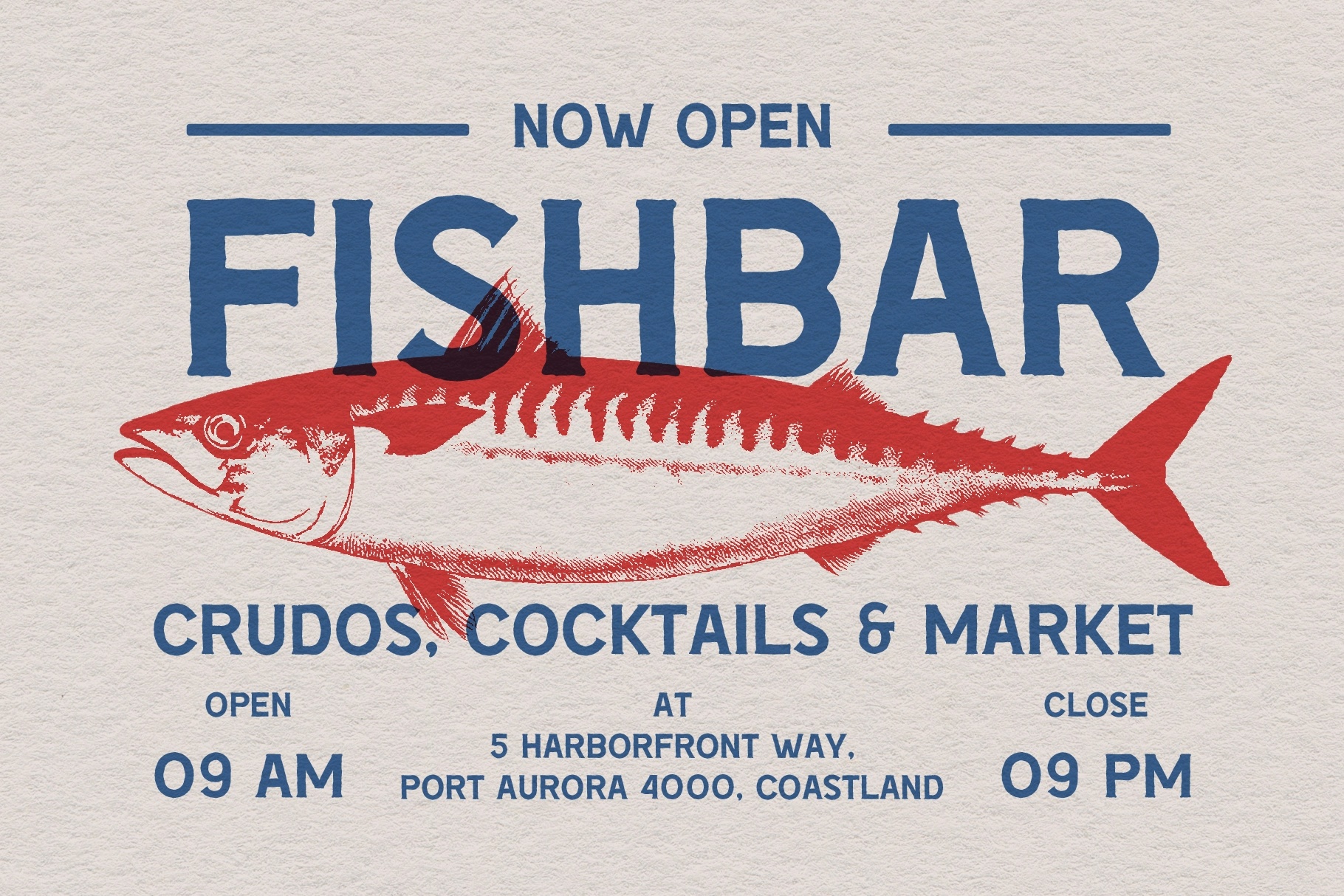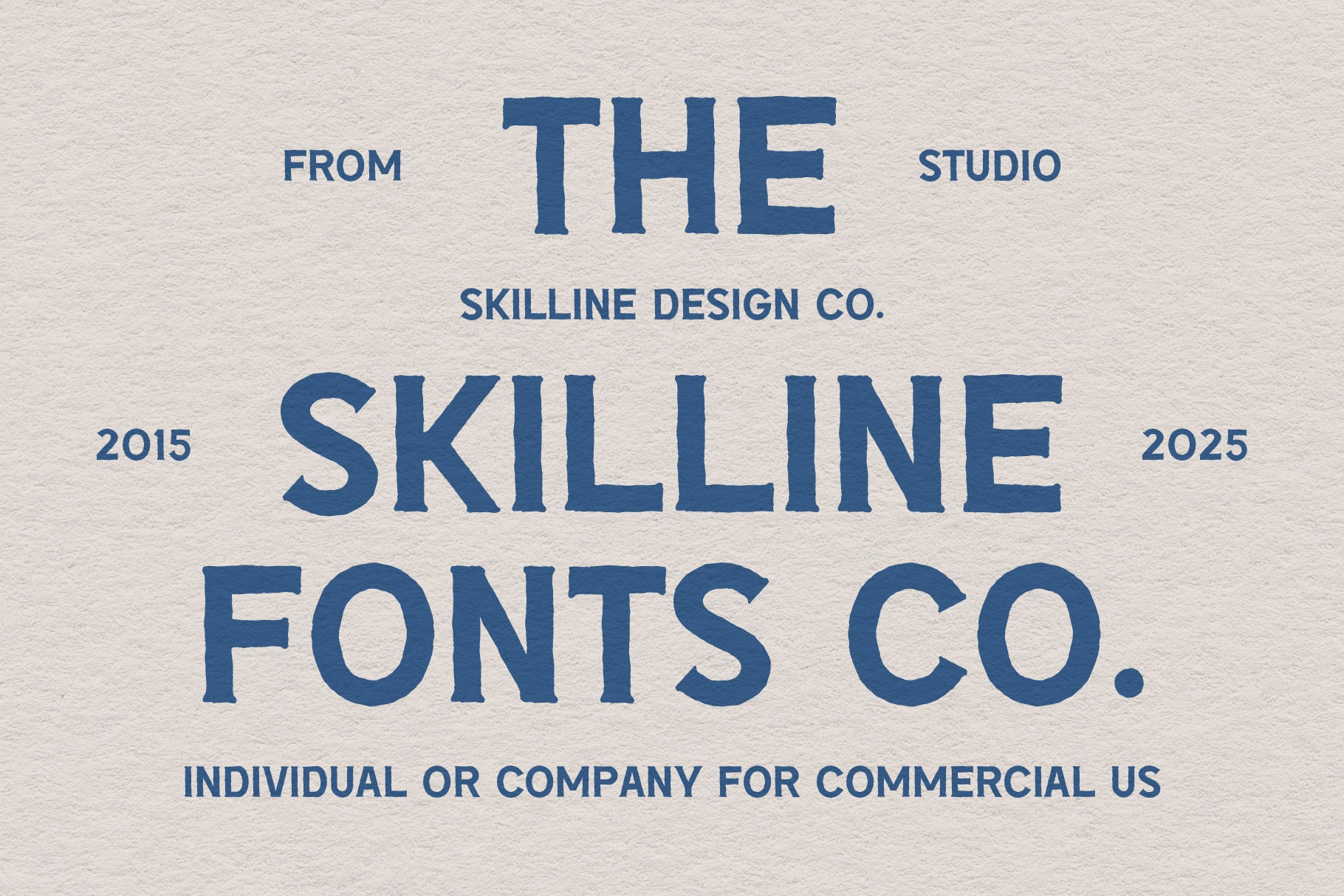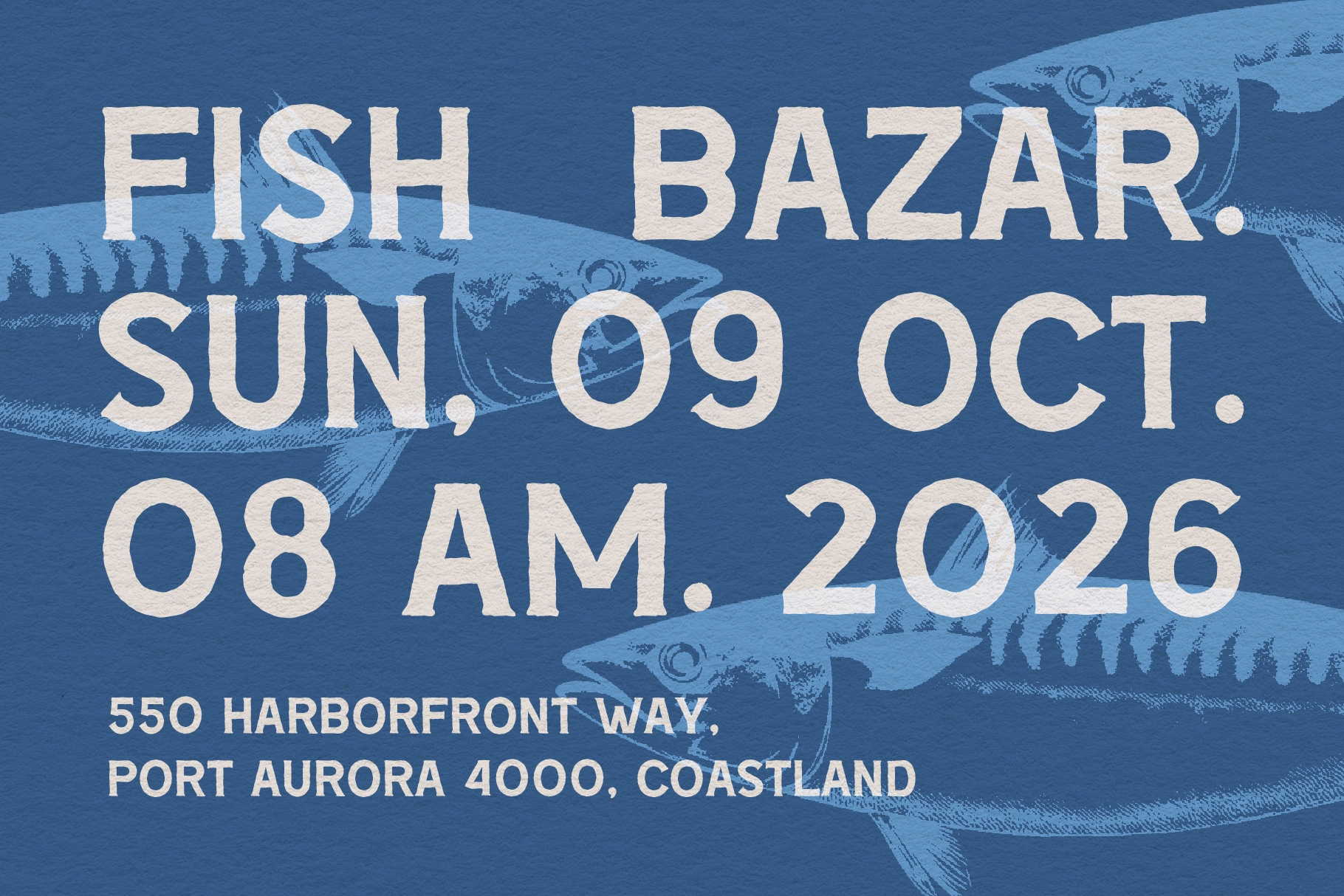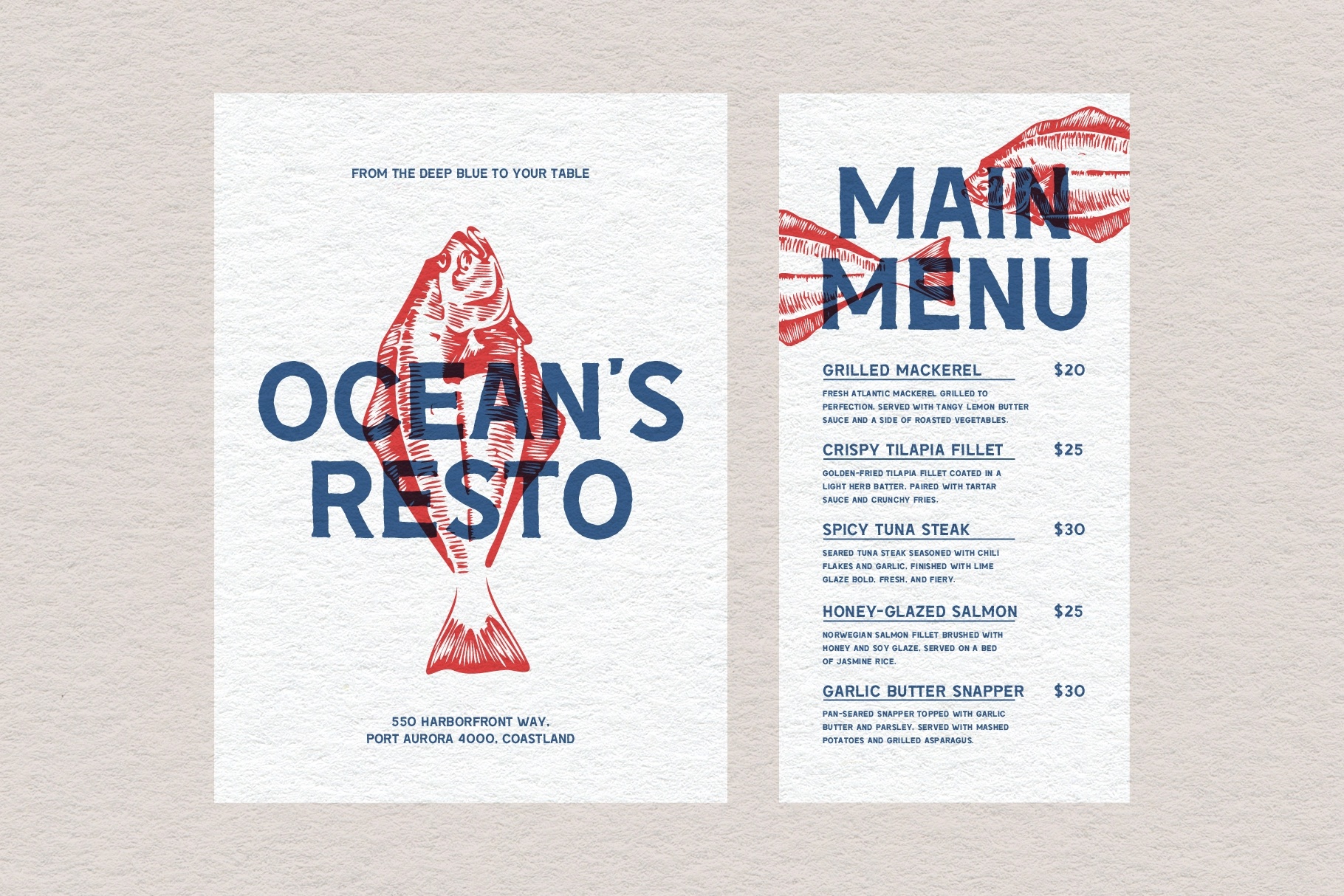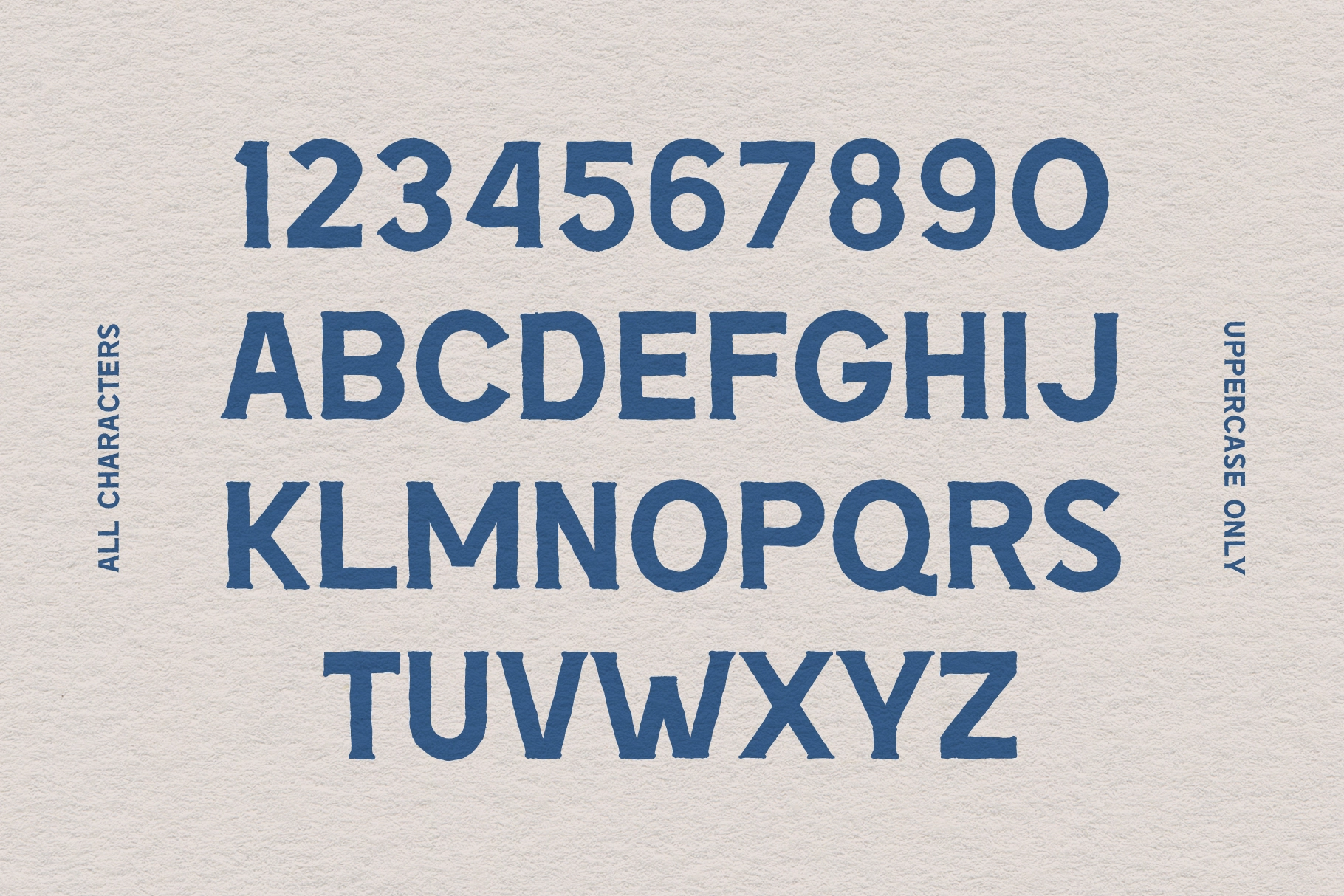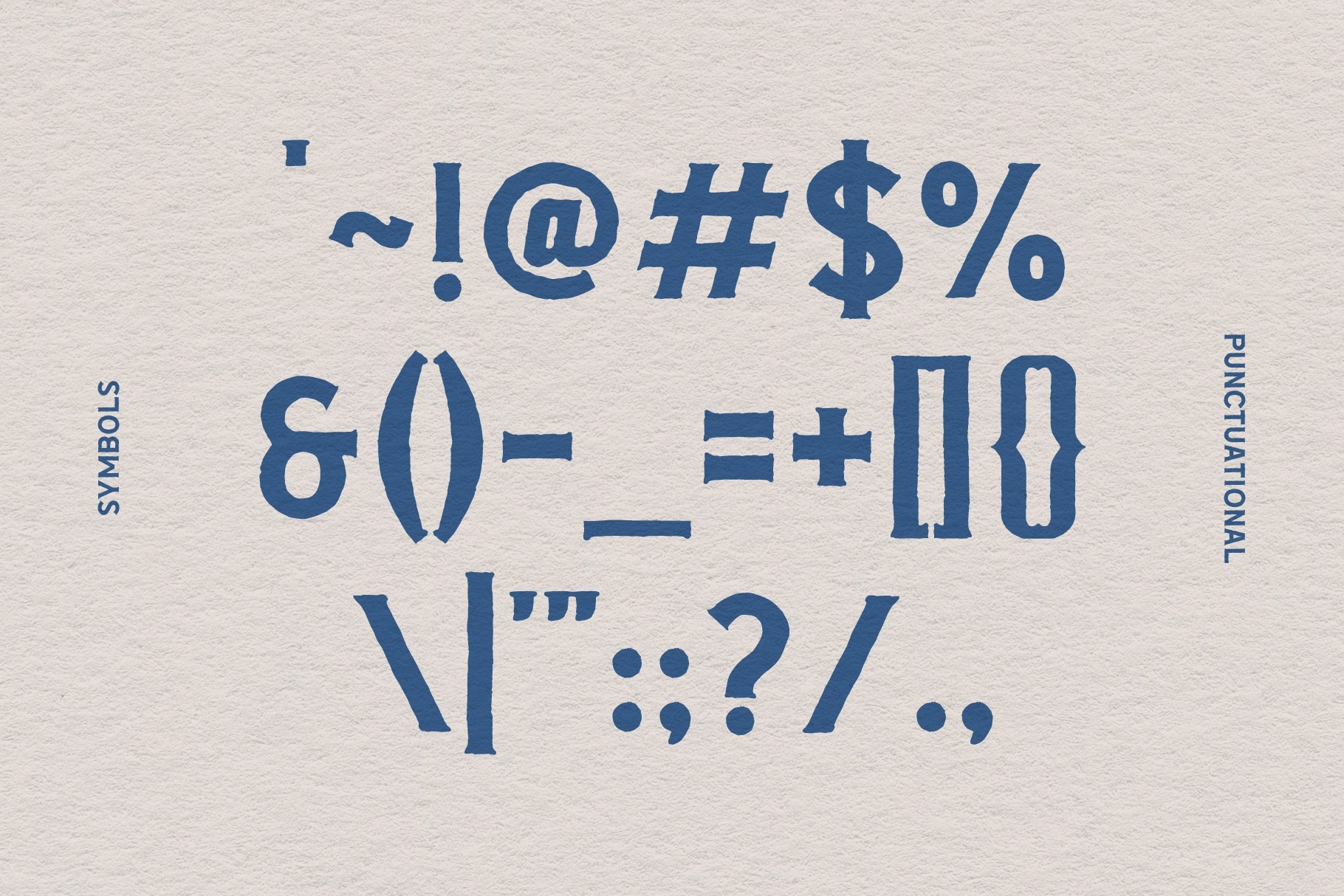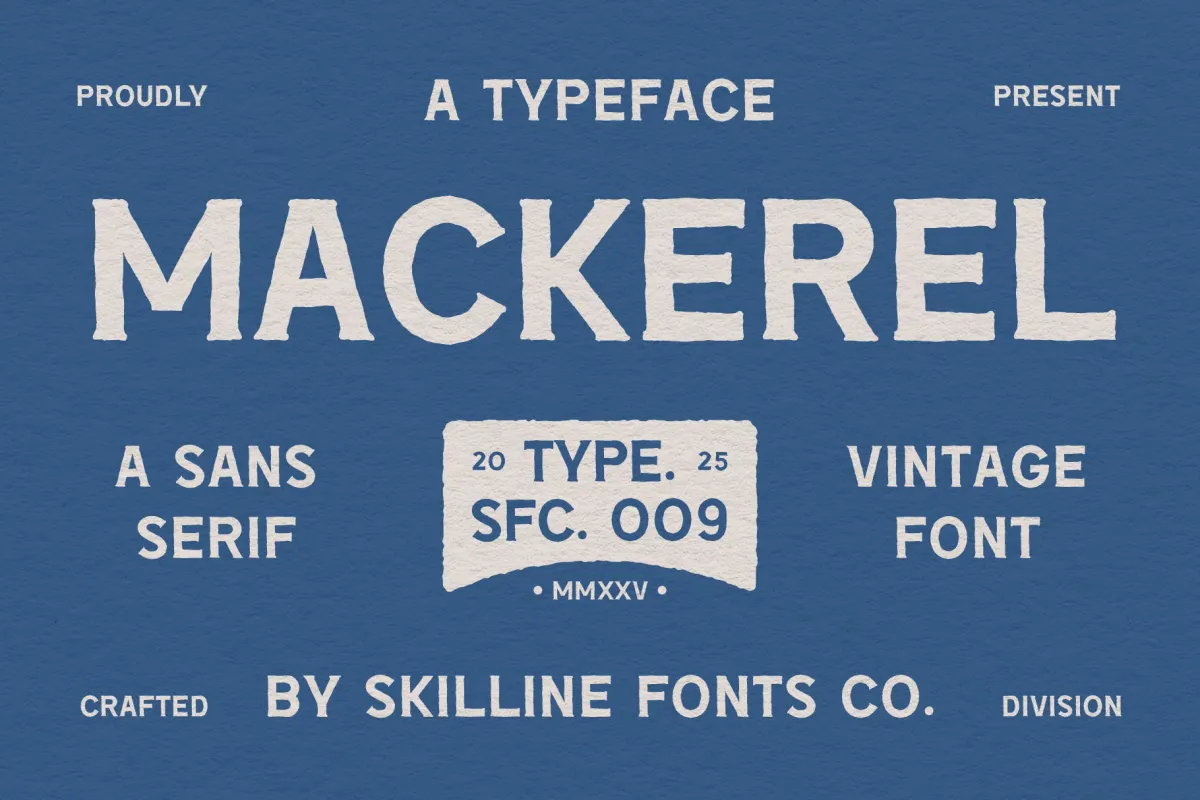
Mackerel - Vintage Sans Serif Font
Mackerel is a bold vintage sans serif typeface that captures the strength and authenticity of hand-painted lettering. Designed with a balance of clean geometry and organic texture, it brings a warm, human touch to modern design. Its handcrafted edges and subtle imperfections make it perfect for projects seeking both rugged character and timeless readability.
Inspired by mid-century signage, maritime design, and classic branding, Mackerel feels right at home on logos, packaging, apparel, and editorial layouts. Its sturdy, all-caps structure ensures clarity and impact, while the textured details add depth and authenticity to every composition.
Built for versatility, Mackerel adapts easily across print and digital platforms—ideal for brands that value craftsmanship, simplicity, and a touch of nostalgia.